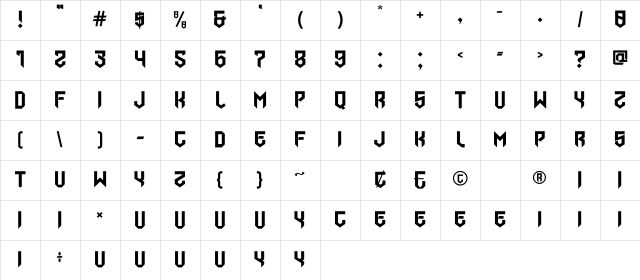
Air Flight is a composed and adaptable typeface that performs quietly and consistently across a wide range of design contexts. Its slender proportions lend an understated elegance to any composition.